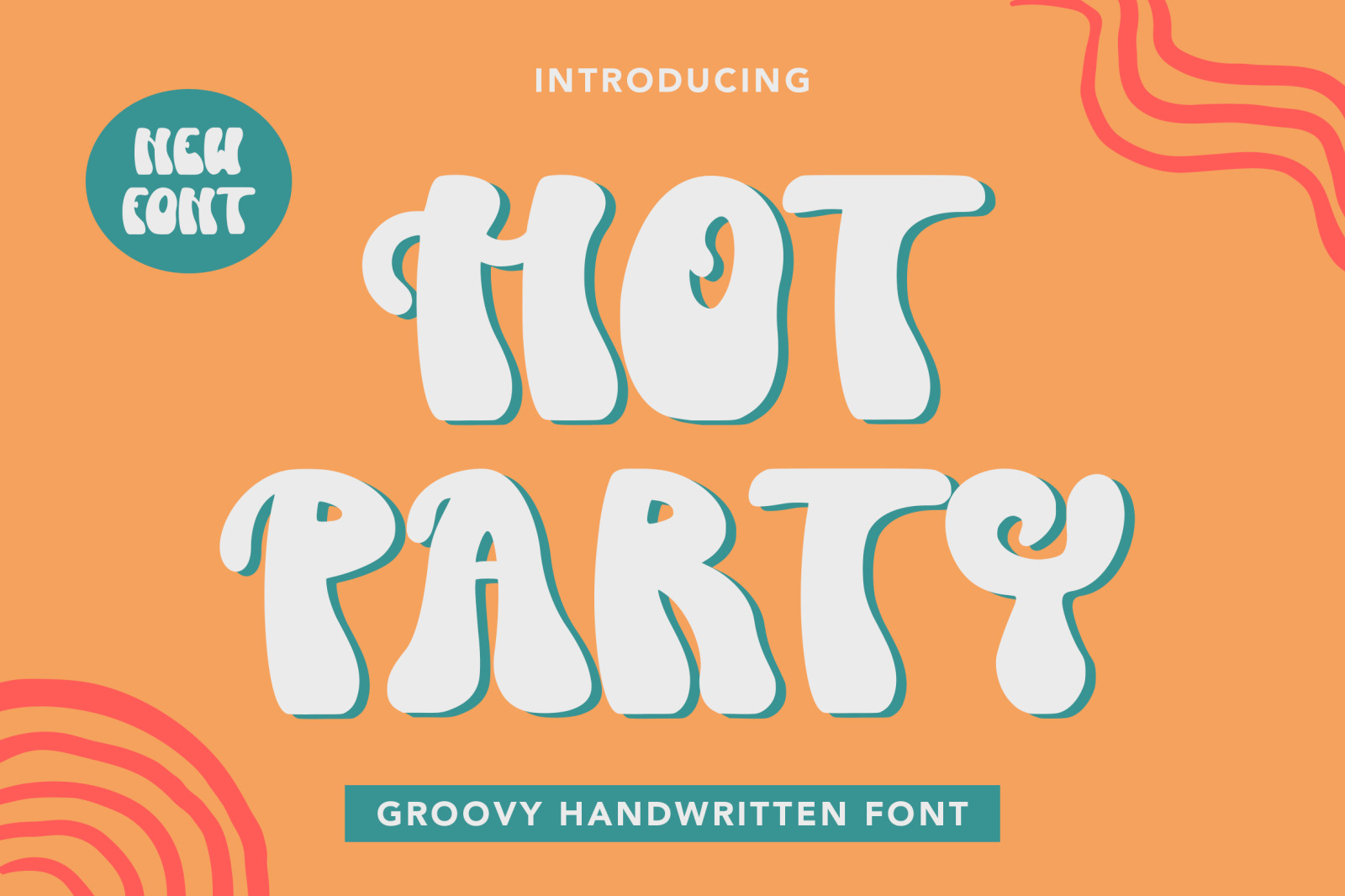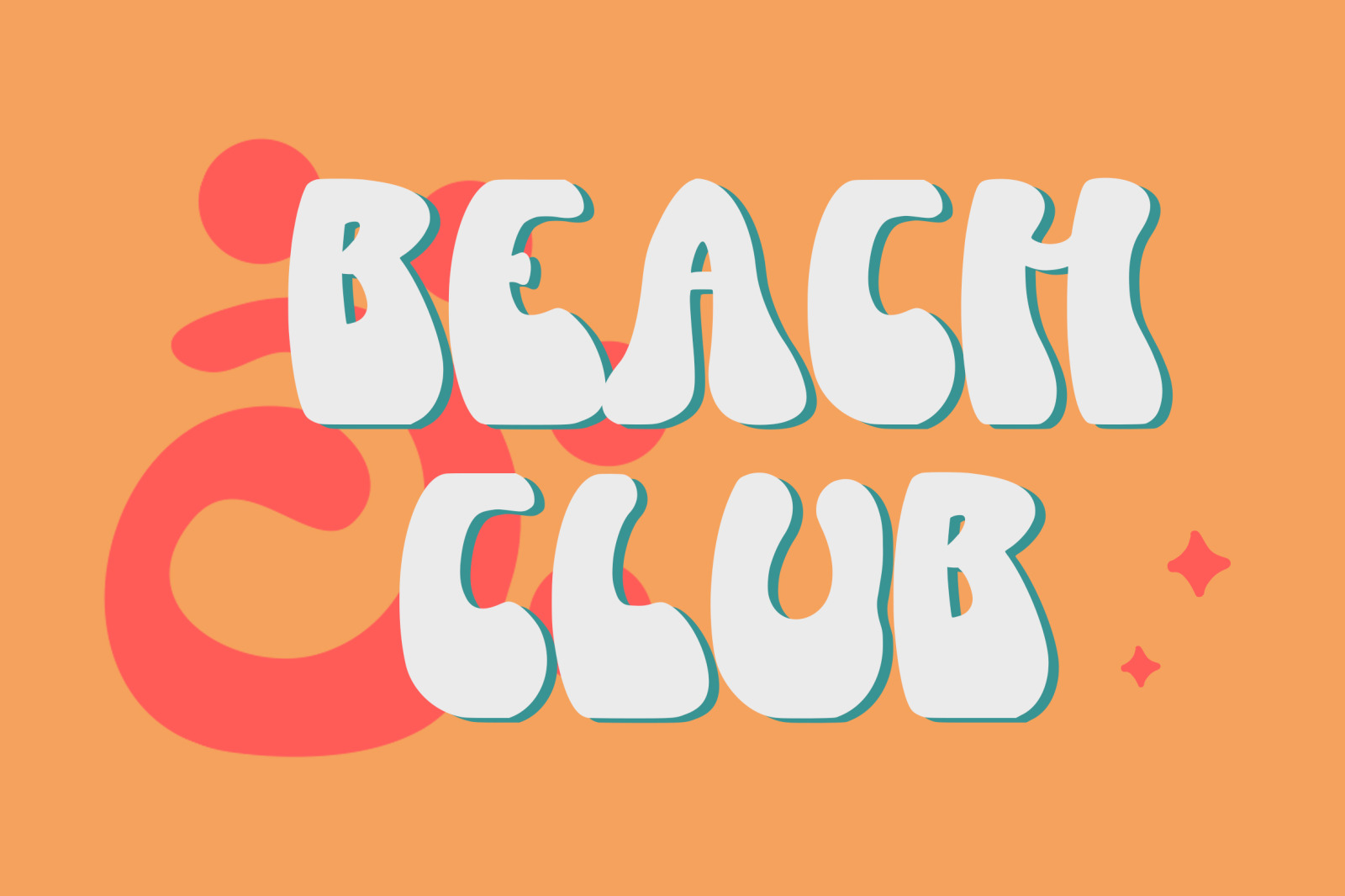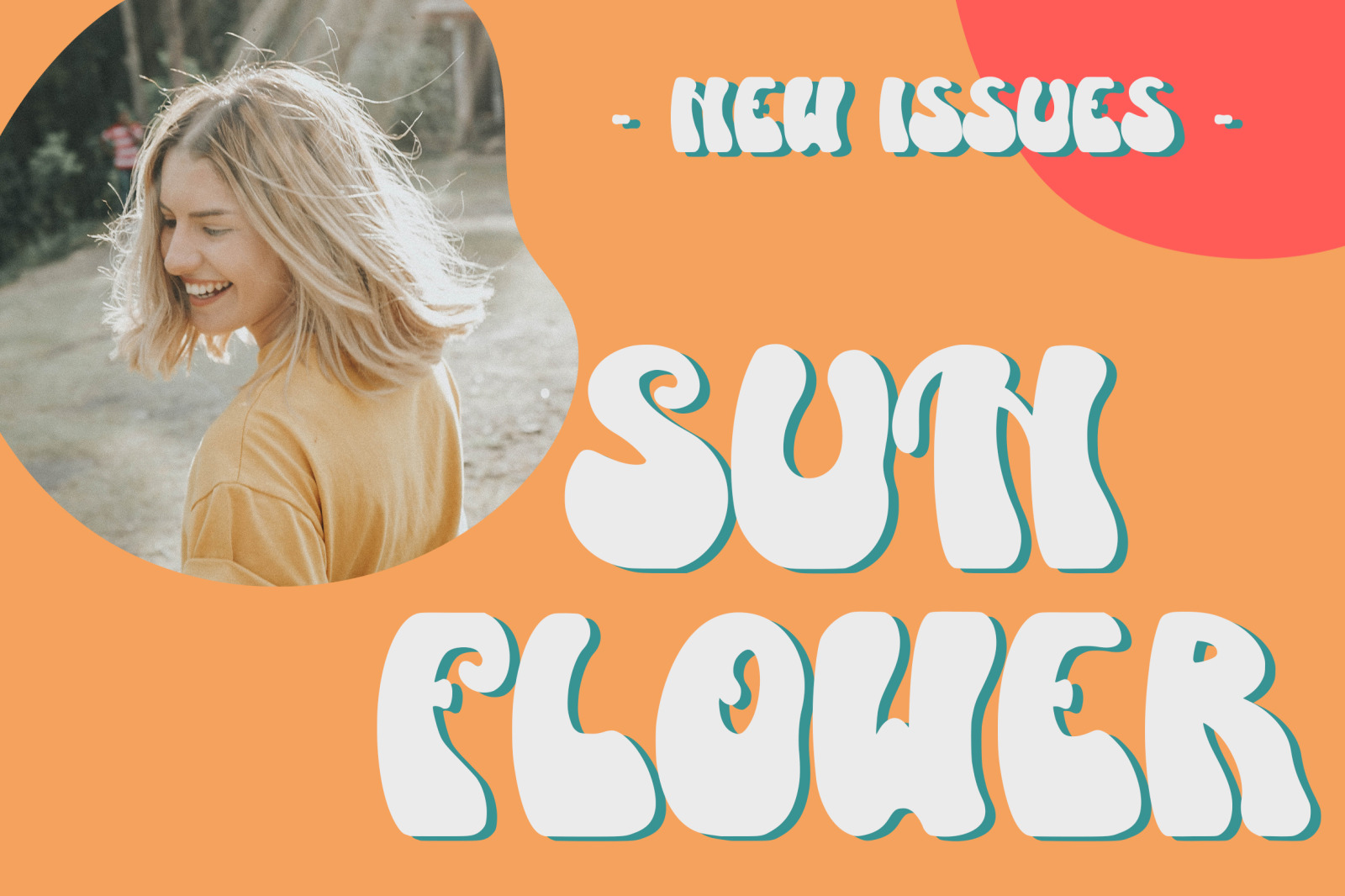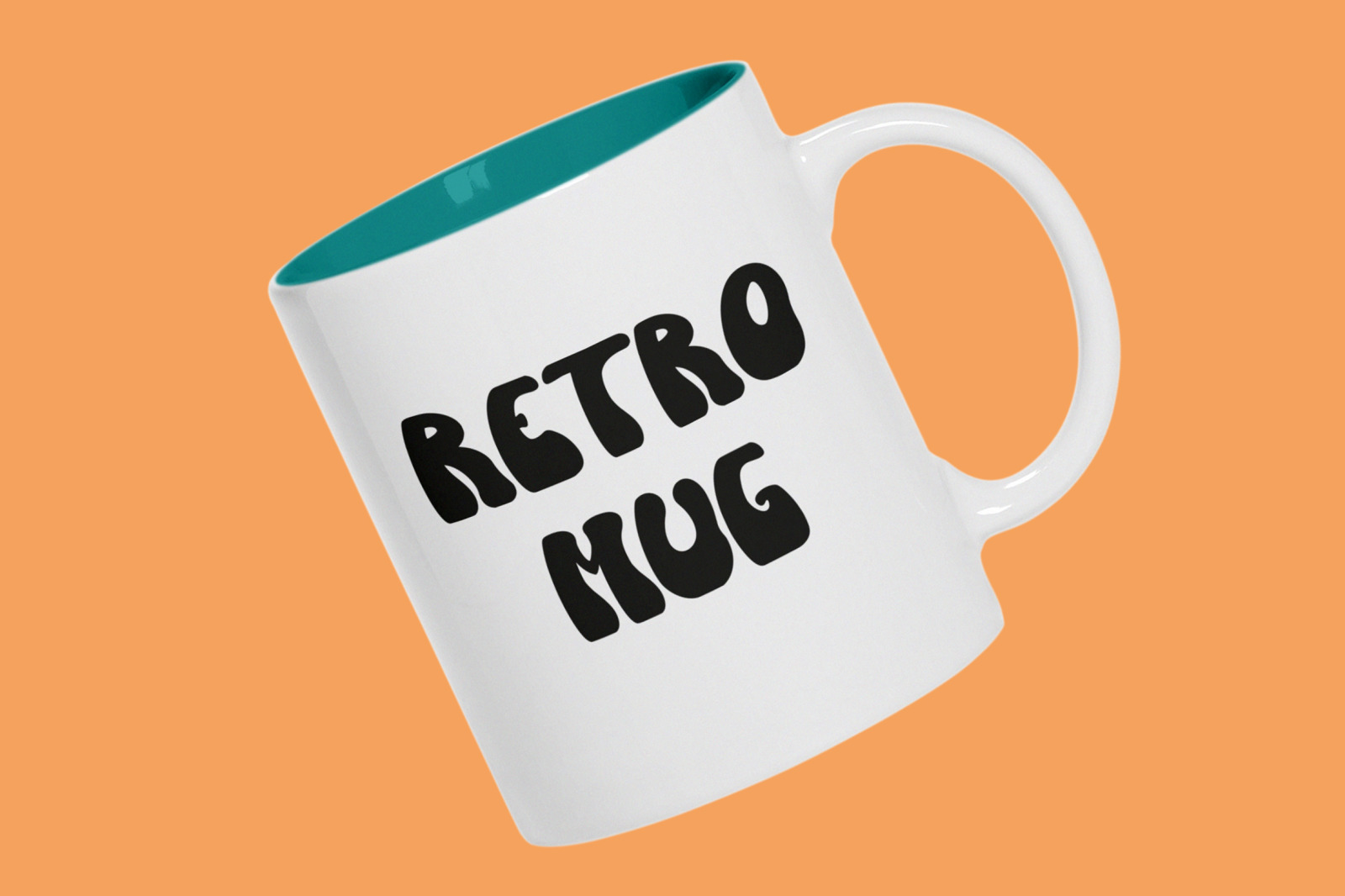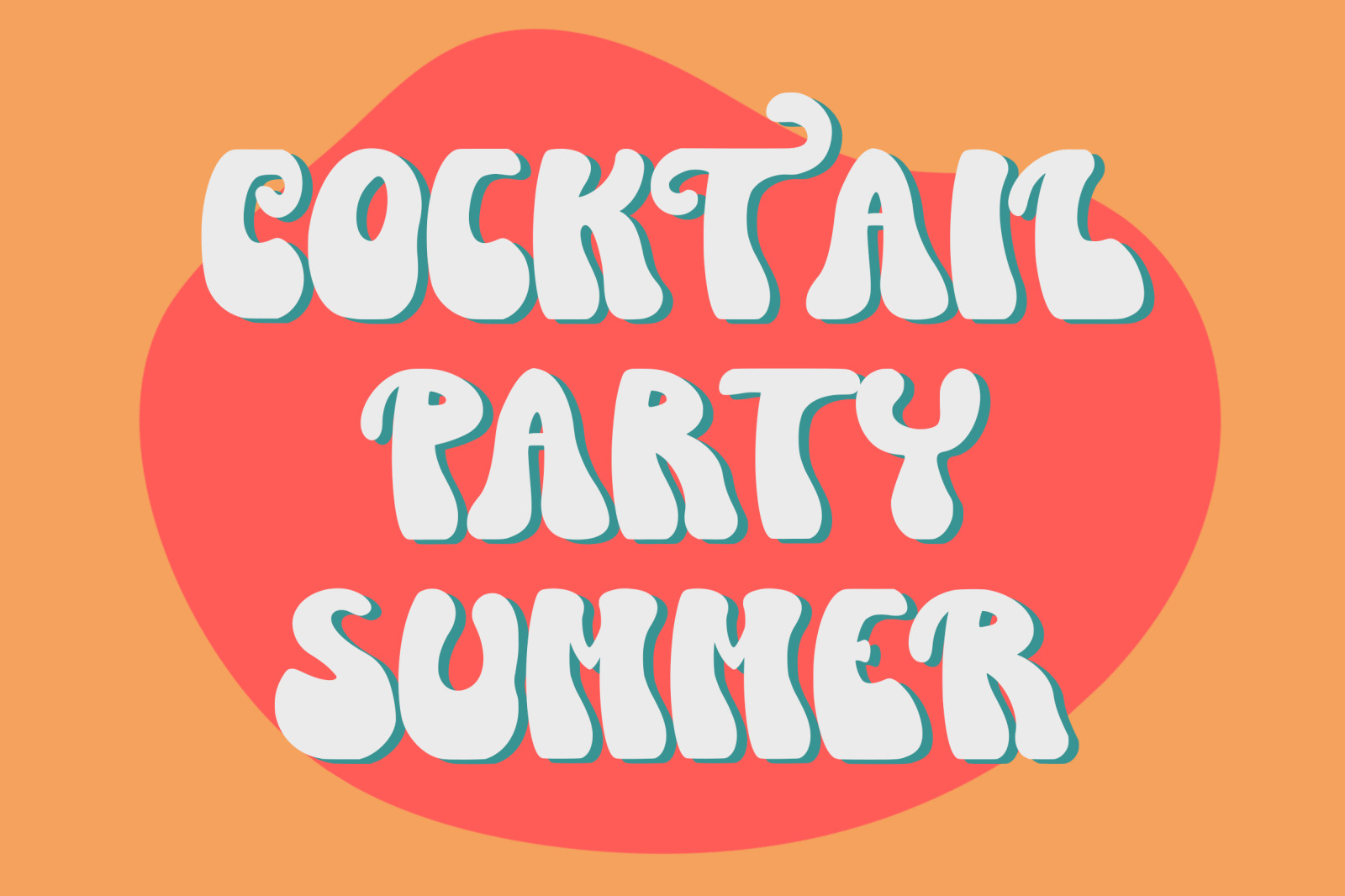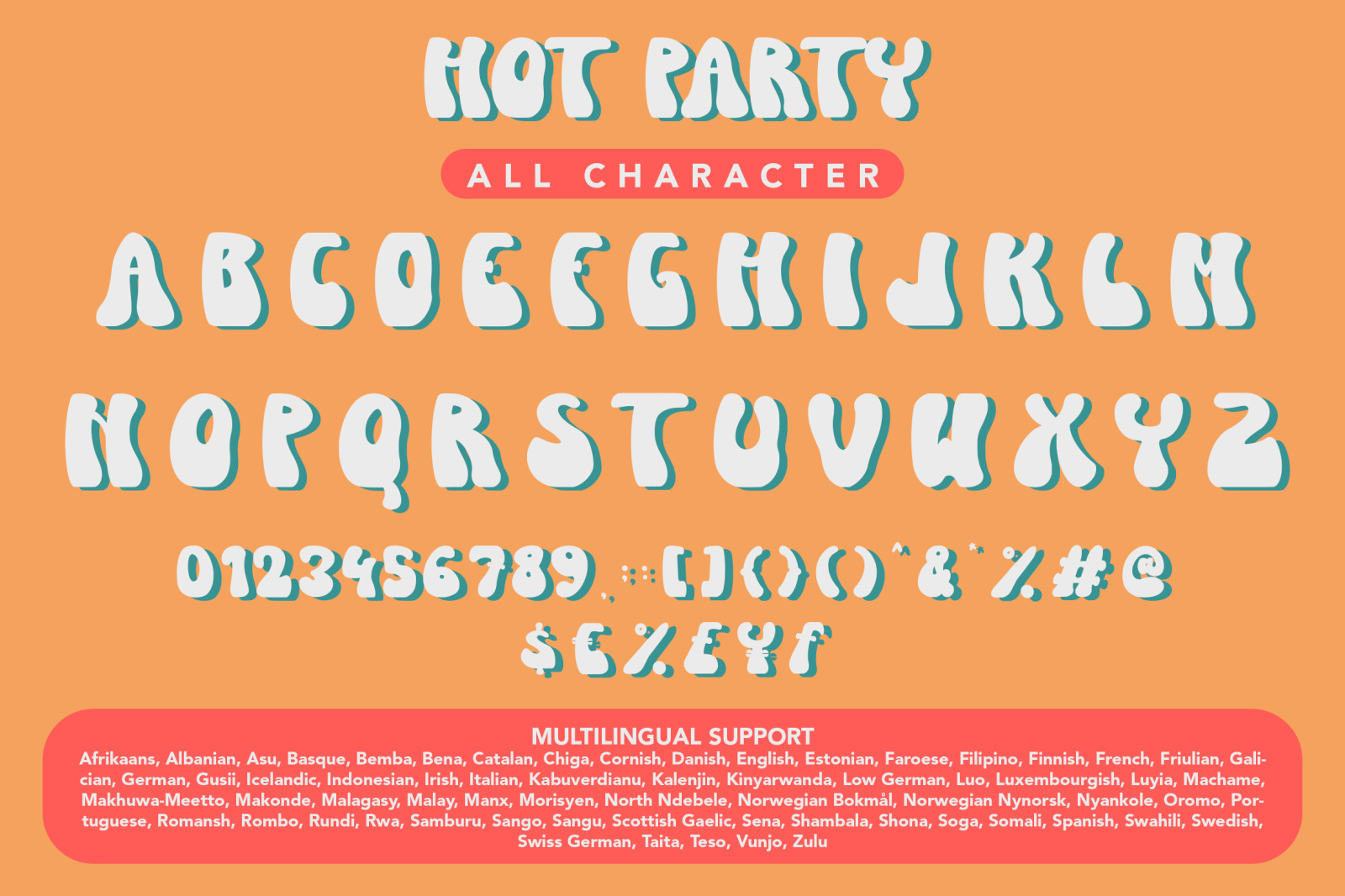
Hot Party Font
Is a font with groovy retro style. With distinctive handwritten characters perfect for branding projects, logos, wedding designs, media posts, advertisements, product packaging, product designs, labels, photography, watermarks, invitations, stationery, and any project who need handwritten dishes.
Feature :
* Symbol
* Number
* Alternate
* Punctuation
* Multilingual support